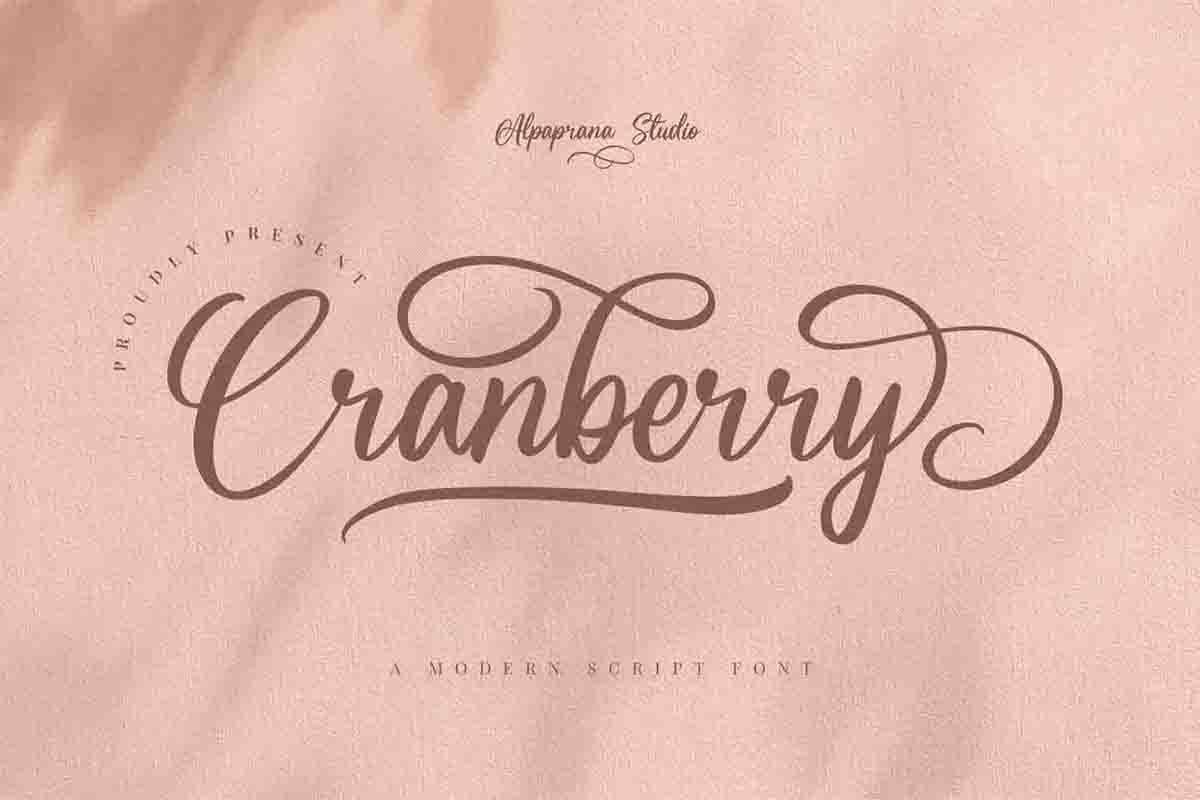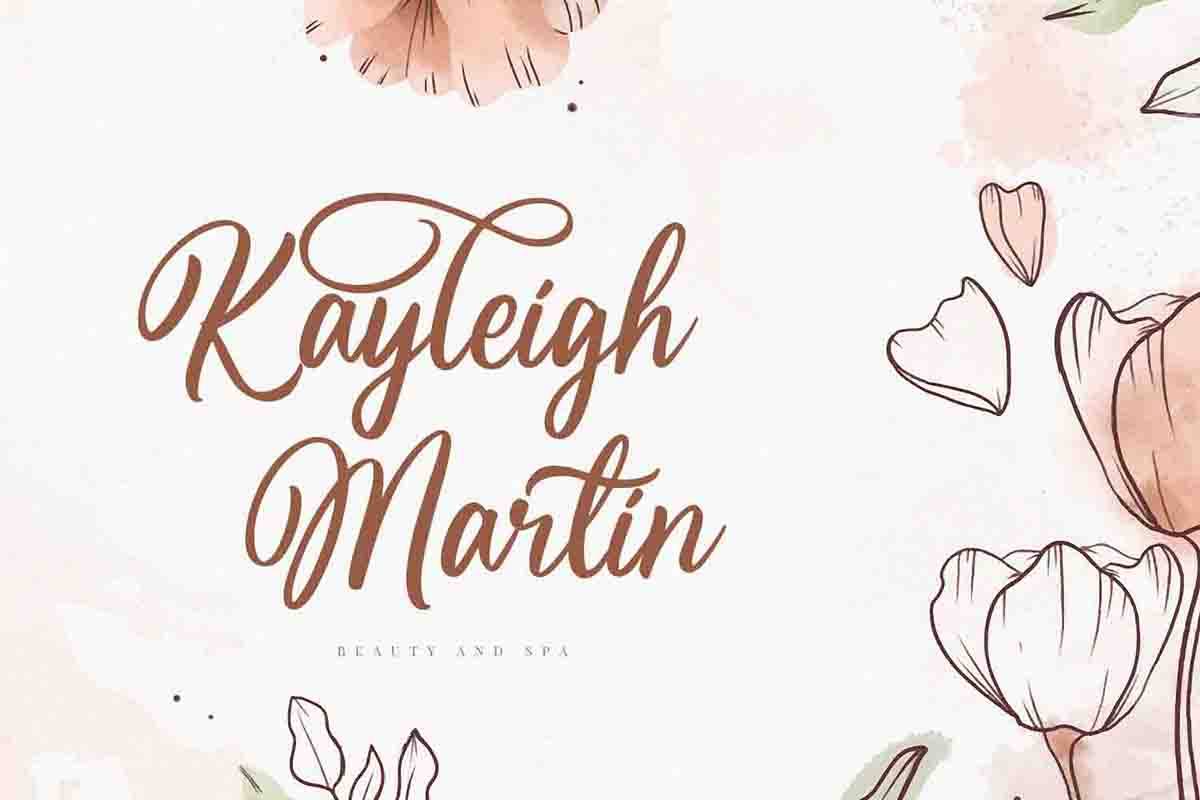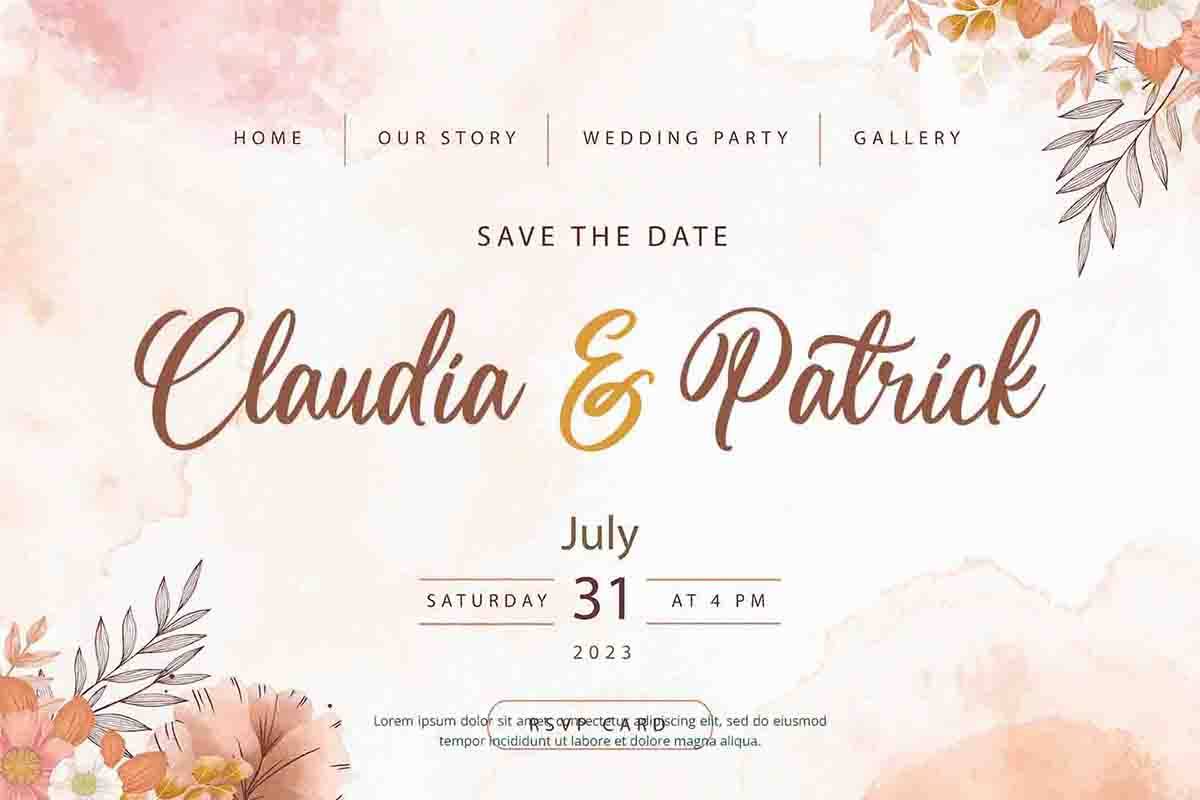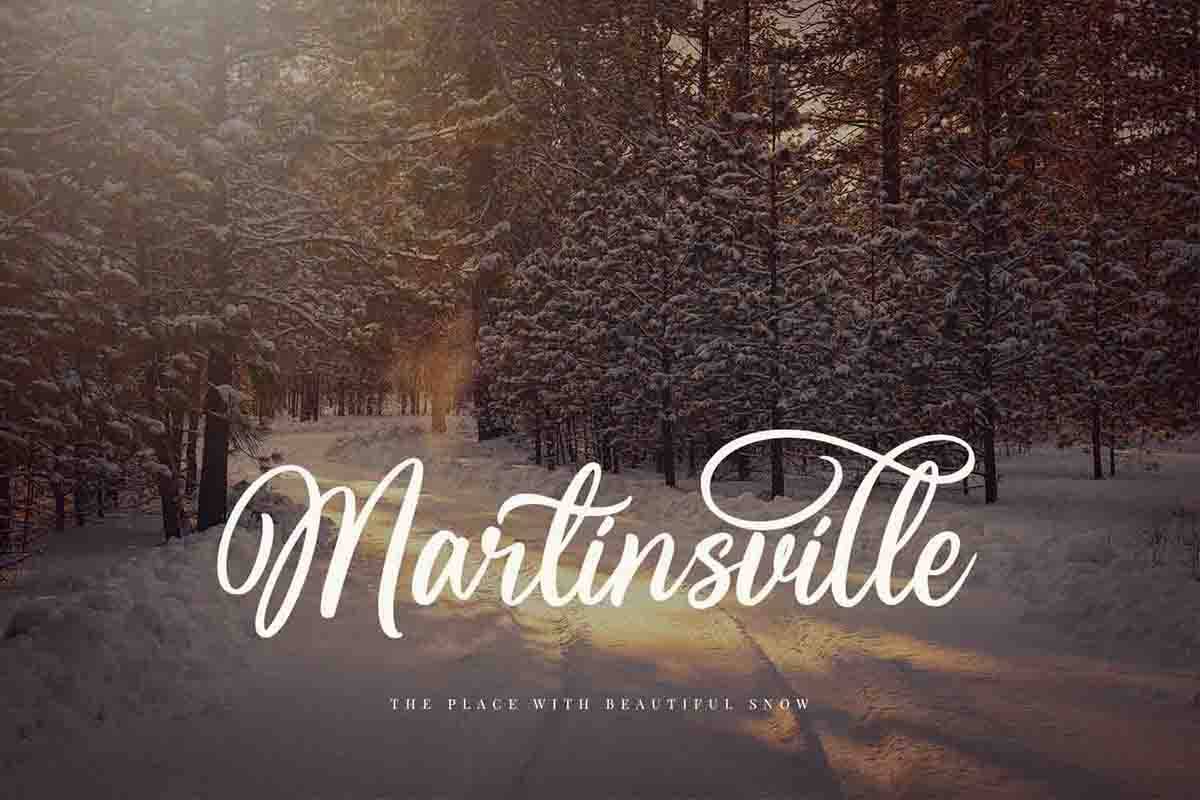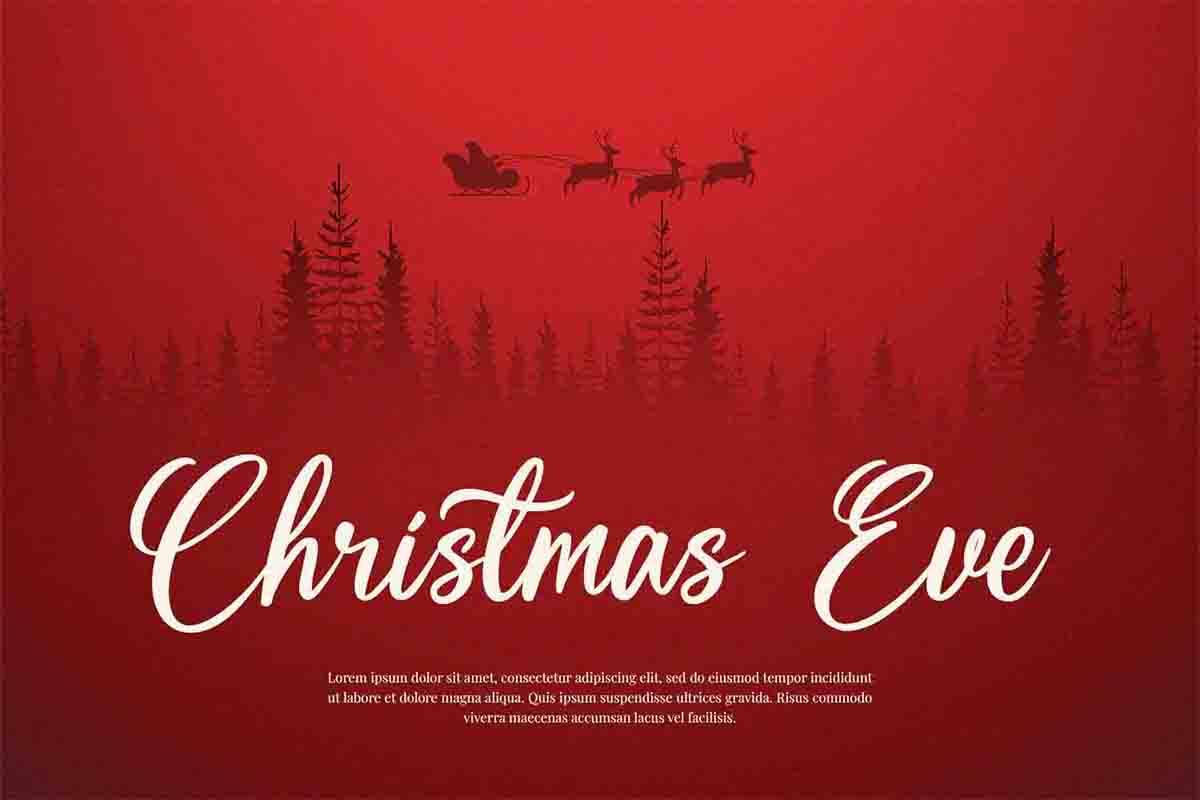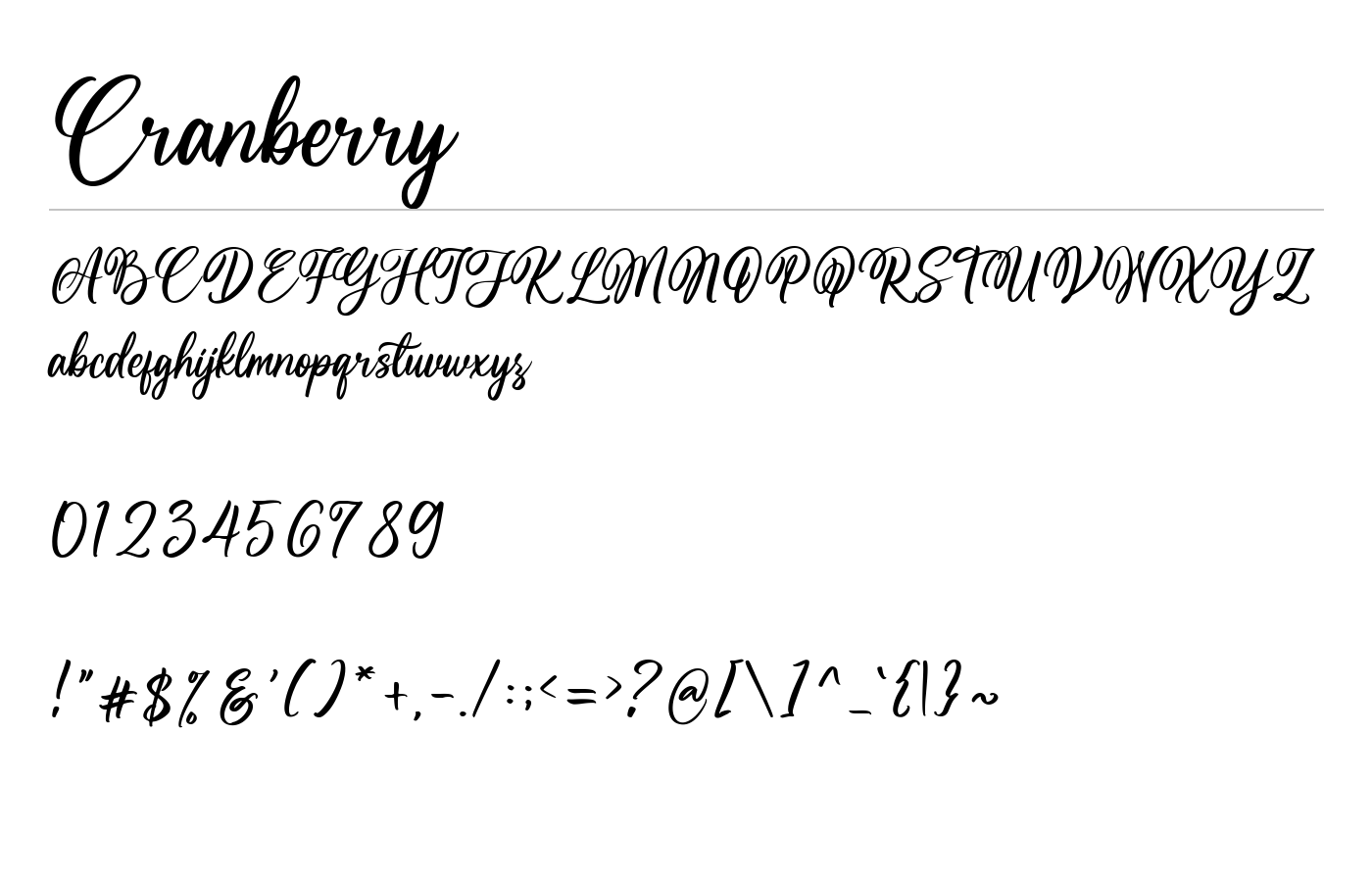
Cranberry is an elegant, flowing script font with a smooth, calligraphic style that features medium weight and tall, narrow letterforms. Its refined curves and delicate strokes make it ideal for sophisticated branding, invitations, and decorative headlines where a touch of graceful charm is desired. This font works best in projects that seek a personal, artistic feel with a modern yet timeless appeal.
Cranberry Font
About Cranberry Font
| Font family | Cranberry Font |